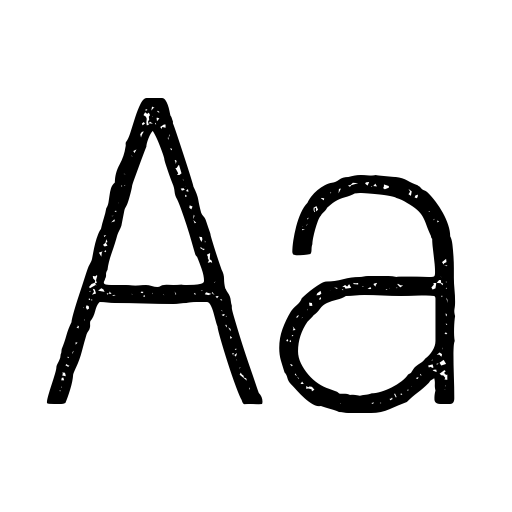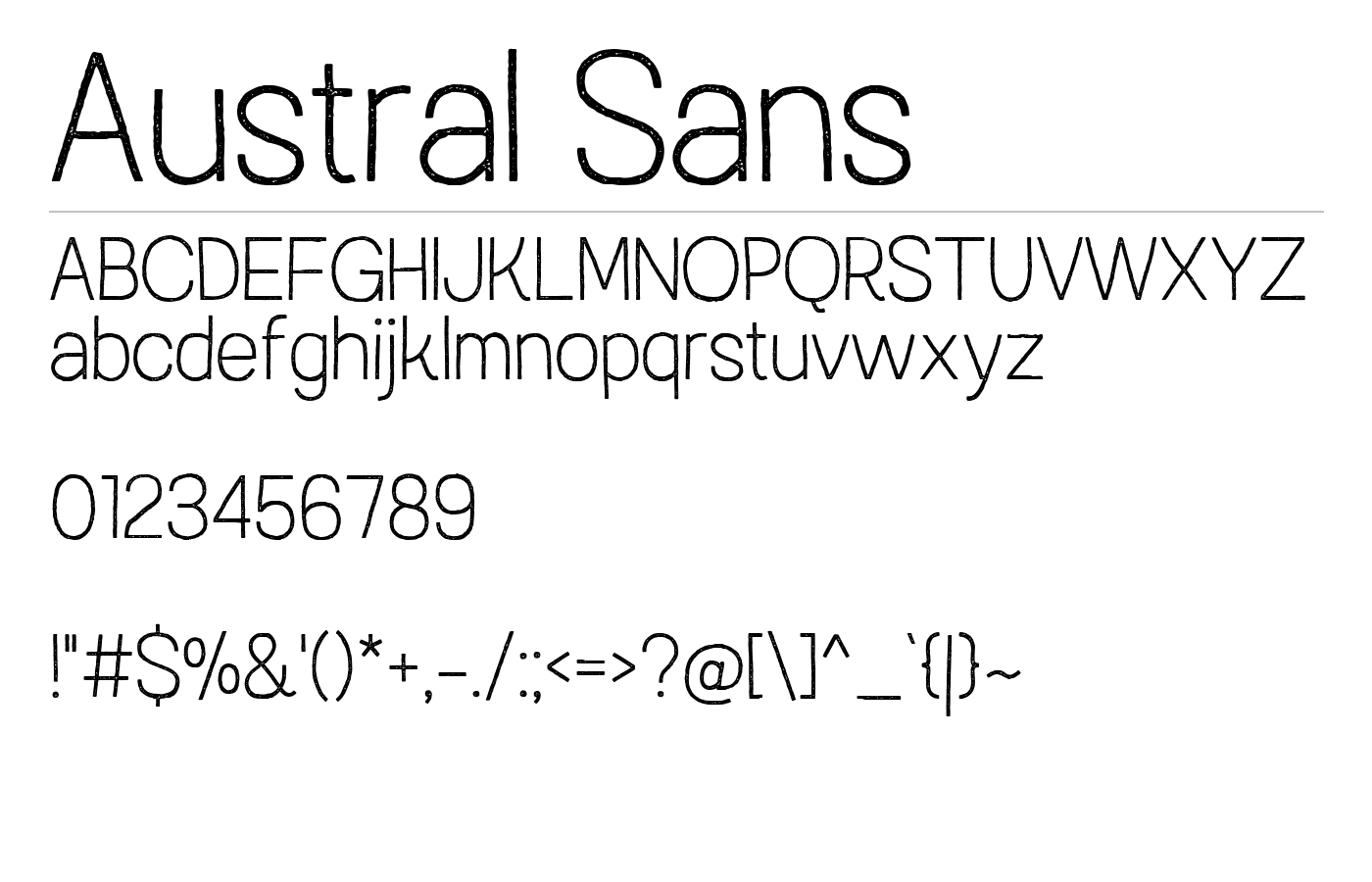
Austral Sans is a slender, modern sans-serif font characterized by its thin strokes and tall x-height, giving it a light and airy appearance. Its narrow letterforms and subtle stroke contrast create a clean, elegant look that works beautifully for minimalist branding or editorial design where a refined, contemporary feel is desired. This font is ideal for headlines, logos, and stylish packaging that aim to convey sophistication with a touch of understated uniqueness.
Austral Sans Font
About Austral Sans Font
| Font family | Austral Sans Font |
| Languages supported | Latin, Symbols, Hangul |
| Designer | Julia Martinez Diana, Antipixel |